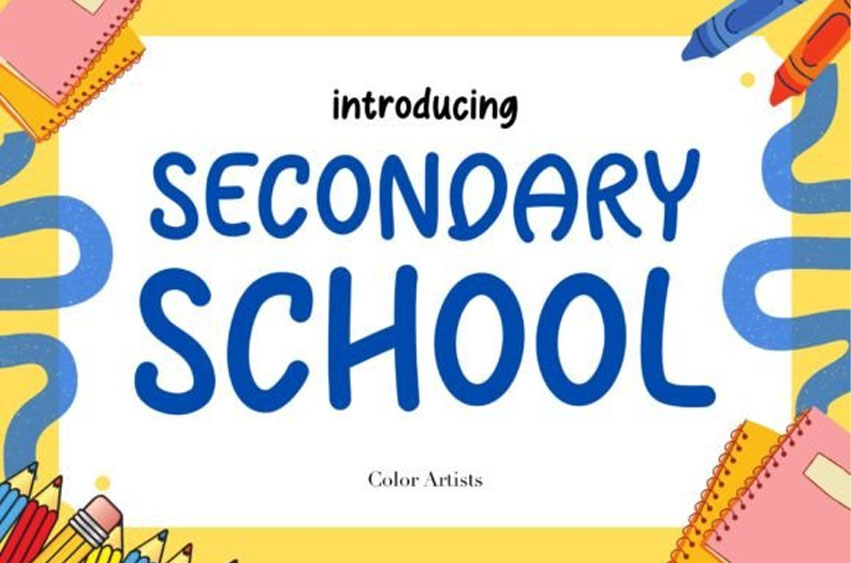
Secondary School Font
Secondary School Font Are you looking for a font that captures the essence of secondary education? Look no further than Secondary School Font!
Designed with students, teachers, and educational materials in mind, this typeface combines professionalism with a touch of youthful energy.